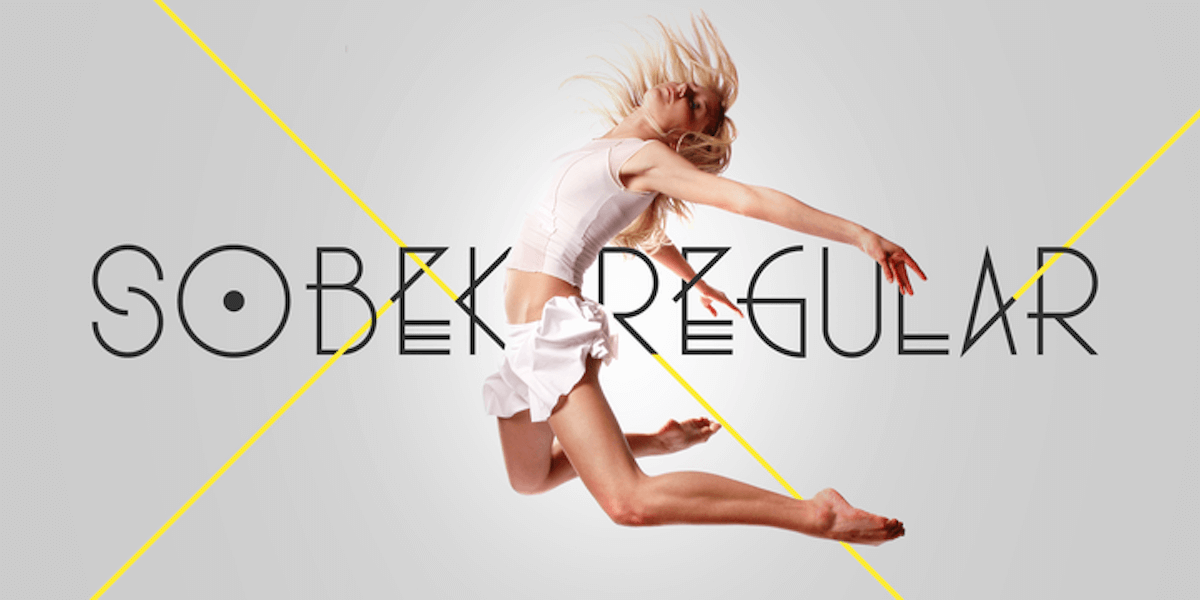
Panicking over an amazing logo that can express and impress simultaneously? In this article, we have covered some of the best logo font options.
There is a wide array of fonts especially for logos that will decrease your tension. You can choose from the huge collection of fonts to create whichever logo you prefer and just see the magic.
How to Select a Font for Your Logo?
Before you start creating your logo, one of the most important factors to consider is the niche of your business. If you are into the entertainment niche the font will be different, if you are into the science or business niche the font will be different.
So, the overall personality of your business makes a big difference when selecting your logo font. Also, you need to create a mind map about the content you are going to publish.
If you create a funky logo for your website while you publish serious kinds of content, it will be a mismatch. So, the logo of your website has to go well with the overall theme of your business.
So, let’s look at the top logo design fonts that you can use.
Ostrich Sans
A narrow Sans Serif font, Ostrich Sans can be a very niche option to create your logo. It comes with uppercase lettering and a rounded edge.
You get this font in ultra-light, light and bold versions. Here is how your logo might look with the Ostrich Sans font.
FF Avance
Designed by Evert Bloemsma, FF Avance is a nice option to create a logo design. This font supports over 80 different languages.
The asymmetrical serifs design of the font makes it different from other fonts.
Bodoni
The Bodoni font is a combination of thick and thin design that makes it is different and interesting choice for logo designs.
Al Fresco
Designed by Laura Worthington, this logo font is quite sophisticated and fashionable. The feel is fresh and emotional.
The flavor of Europe has been well captured by this font, and the presence of ligatures and swashes made it all the more dear.
Lombok
A fancy looking font for creating your logo. You can download this font from Behance to create a fancy looking logo for your upcoming project.
Aracne Condensed
This font finds its use in various events starting from the credits that roll after a movie is finished or the label of any costume. There are four weights in this family characterized by elongated figures which are edgy and dynamic.
Choplin
A beautiful looking free font that is created by the Campton Family. You can use this font free of cost and create a great-looking logo for your project.
Bella Face37
Face 37 is the mind behind this font which is flaunted by broad strokes and sleek curves that lend a vintage feel. The beauty of both the places, New York and Paris are combined here.
One Day
A great looking font to create a fancy logo for your projects. The font is available in different weights so that you can use the perfect version that fits your project beautifully.
Ailerons
Another beautiful font option to create a modern and professional-looking logo design. You can download this font from Behance and use it to create your logo.
The font comes with a vertical and lean design, created by Adilson Gonzales.
Etch
Like its name, the font was planned to be kept etched in the minds of the viewers. Apt spacing, symmetry, and balance along with slender grooves are the eye-catching features that portray the feel of yesteryear.
Cooper Hewitt
Cooper Hewitt is another popular choice to create logo designs. The font is part of the sans-serif family, it looks great and distinct.
Ending Note
If you search properly for logo fonts, then you will be spoilt for choices as there are numerous options and so surf through these thirty fonts and go for the font that expresses your idea and taste the best.